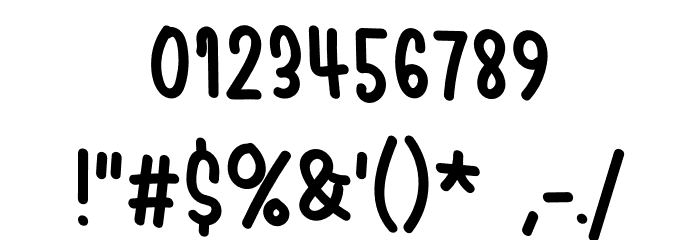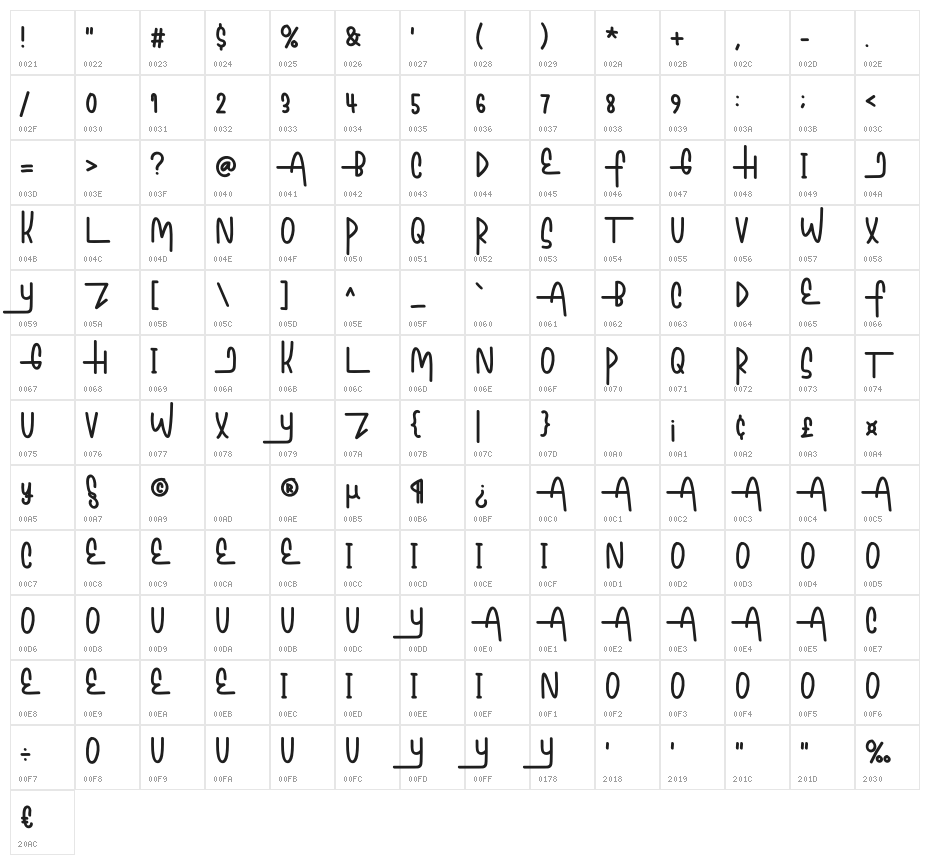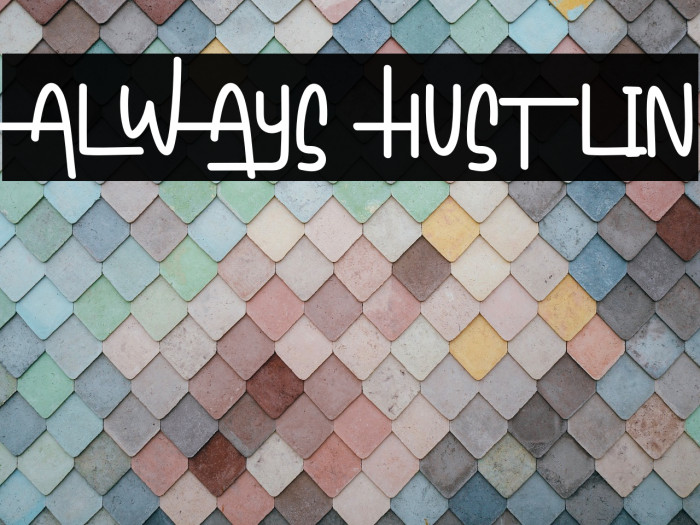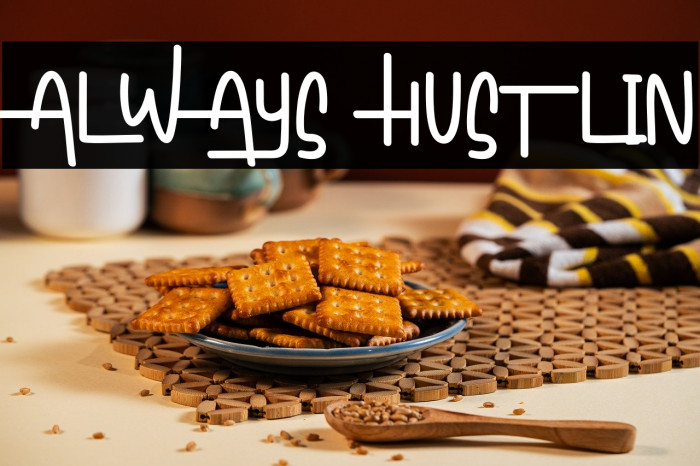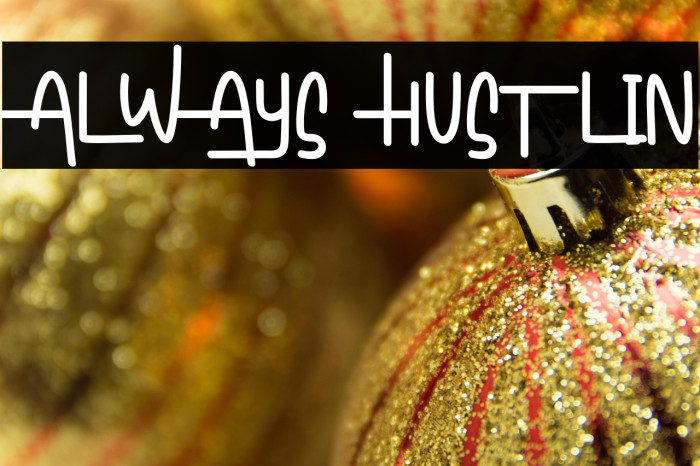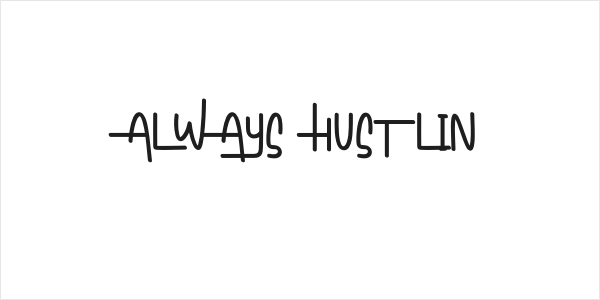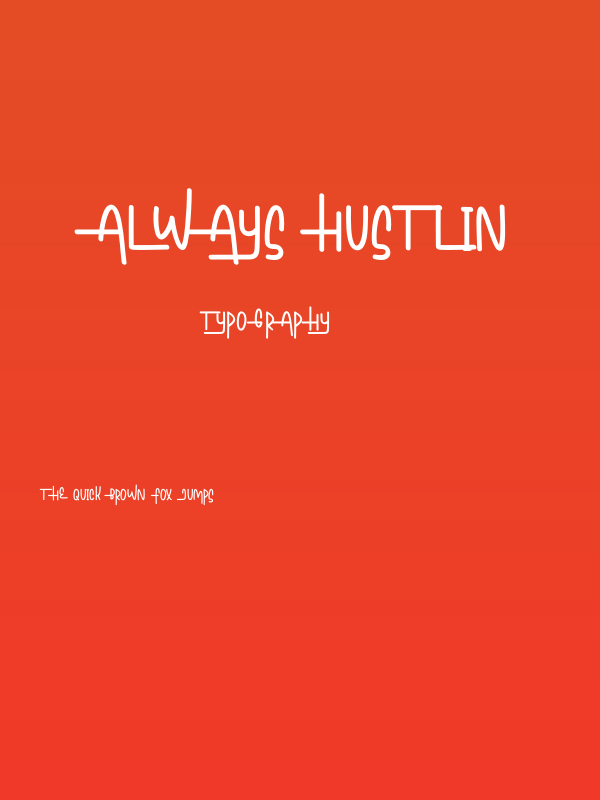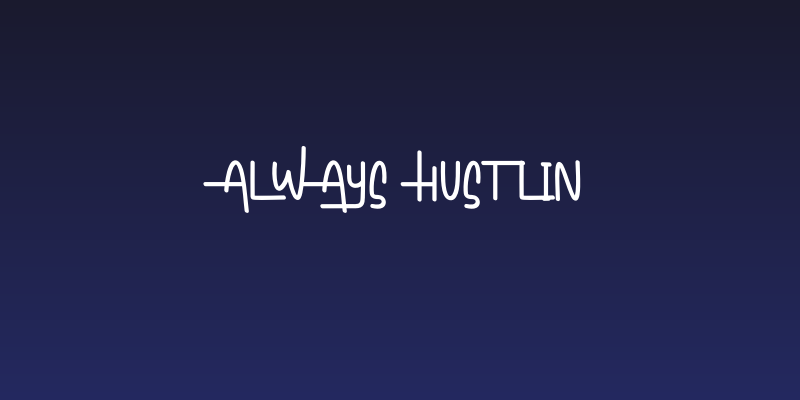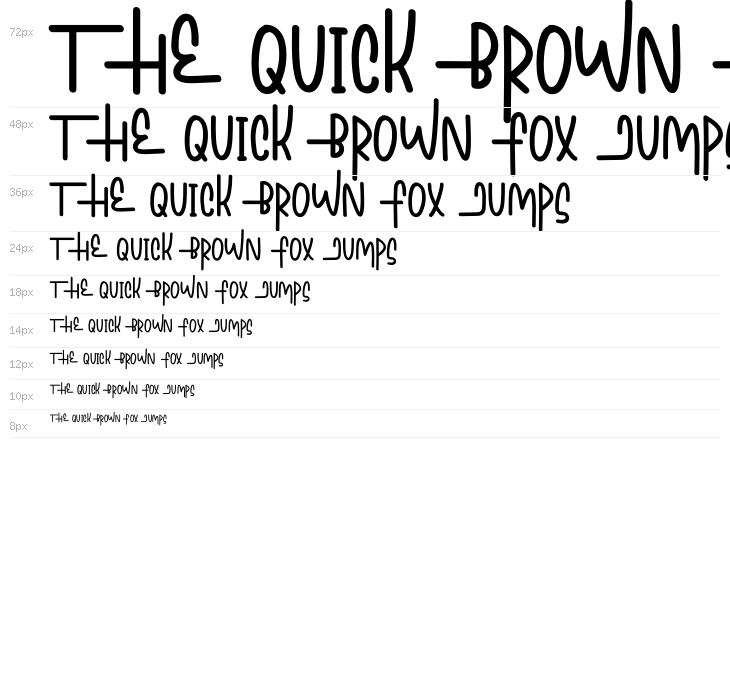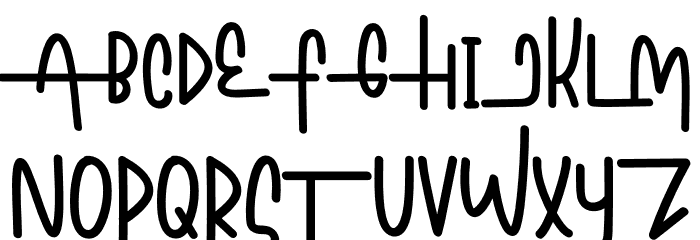
Always Hustlin Font
Always Hustlin Description
This font features a playful and energetic handwritten style, characterized by its bold and rounded letterforms. The uppercase and lowercase letters maintain a consistent height, creating a uniform appearance. The strokes are smooth and slightly irregular, adding a casual and approachable feel. The numbers and special characters follow the same design principles, ensuring cohesion across all elements. This font's unique personality makes it stand out, while its legibility remains intact. The overall design is modern and trendy, appealing to a youthful audience.
| Use Case | Logos, Headlines, Social Media |
| Proposed Projects | Ideal for branding projects, social media graphics, merchandise design, and playful editorial layouts. |